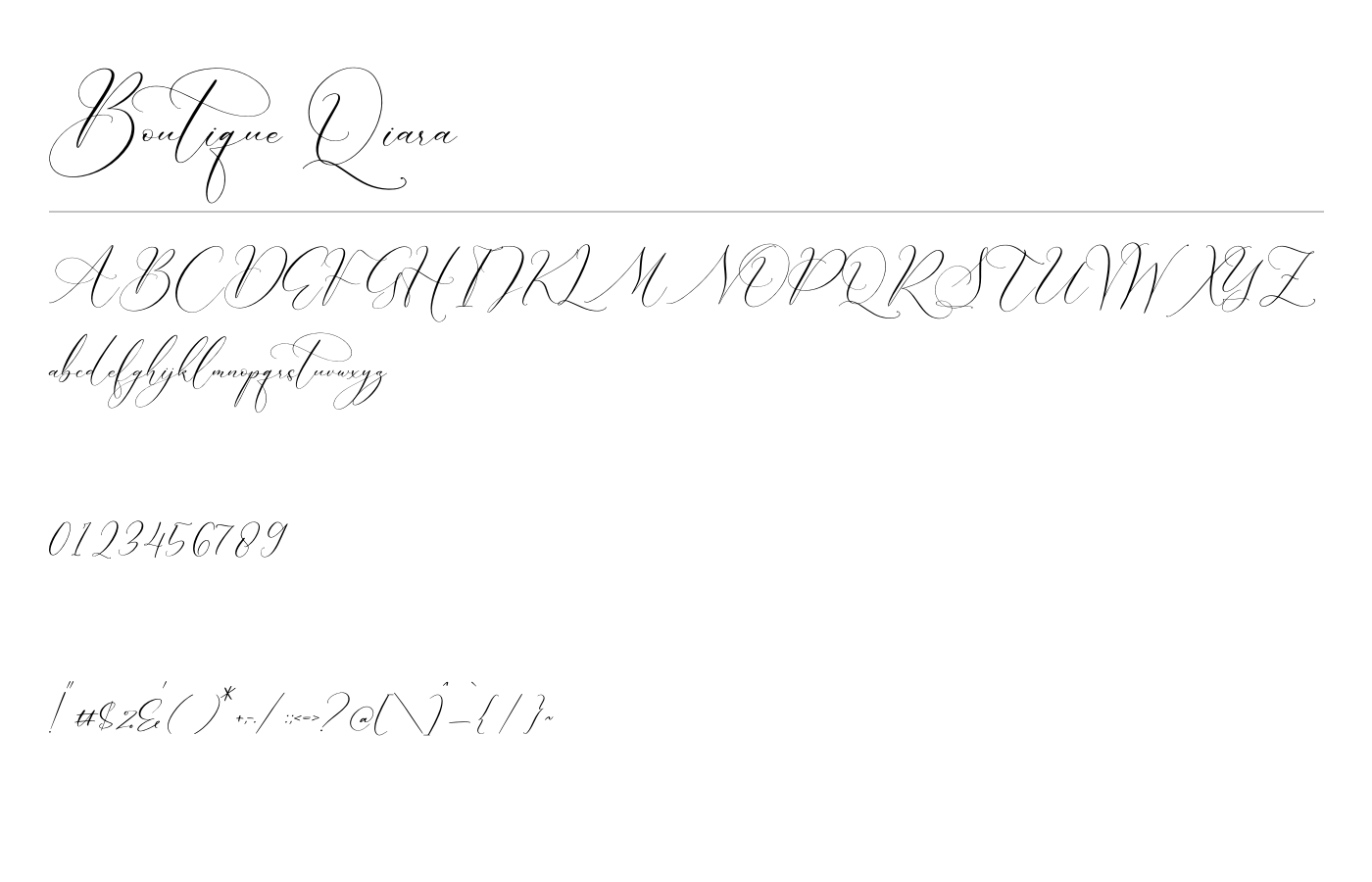
Boutique Qiara is an elegant script font characterized by its delicate, flowing strokes and high-contrast thin lines that create a refined, luxurious feel. Its graceful swashes and flowing letterforms make it perfect for sophisticated branding, wedding invitations, and high-end fashion projects where a touch of romance and elegance is desired. This font’s airy and decorative style works best in large sizes, adding a stylish and feminine flair to headlines and logos.
Boutique Qiara Font
About Boutique Qiara Font
| Font family | Boutique Qiara Font |
| Designer | Nanang Jamaludin |